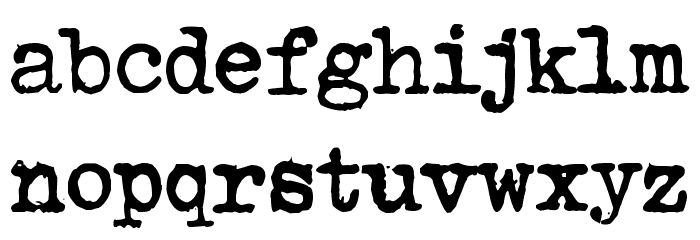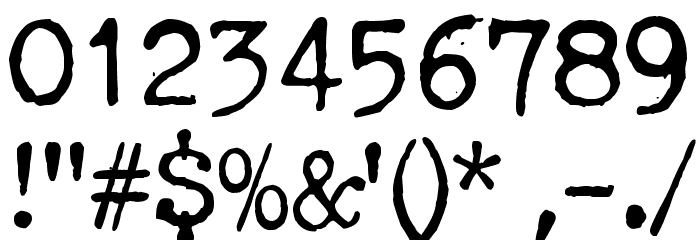
Tahyp-rahy-ter 22 Font
This typeface exudes a vintage, typewriter-inspired aesthetic with its uneven, slightly distressed letterforms that mimic the look of ink on paper. The characters have a monospaced appearance, giving each letter equal width, which is characteristic of traditional typewriter fonts. The edges are rough and irregular, adding to the authentic, old-school feel. This font captures the essence of a bygone era, making it ideal for projects that require a touch of nostalgia or a retro vibe. The uppercase and lowercase letters maintain a consistent style, while the numerals and special characters are crafted to match the overall theme.
A vintage, typewriter-style font with a distressed, monospaced look.
- Font: Tahyp-rahy-ter 22
- Weight: Dirty
- Proposed Projects: Ideal for retro-themed designs, vintage posters, typewriter-style documents, and creative projects that require an old-fashioned touch.
- Category: Monospaced
- Overall Style: Vintage
- Use Case: Headlines, Logos, Decorative text